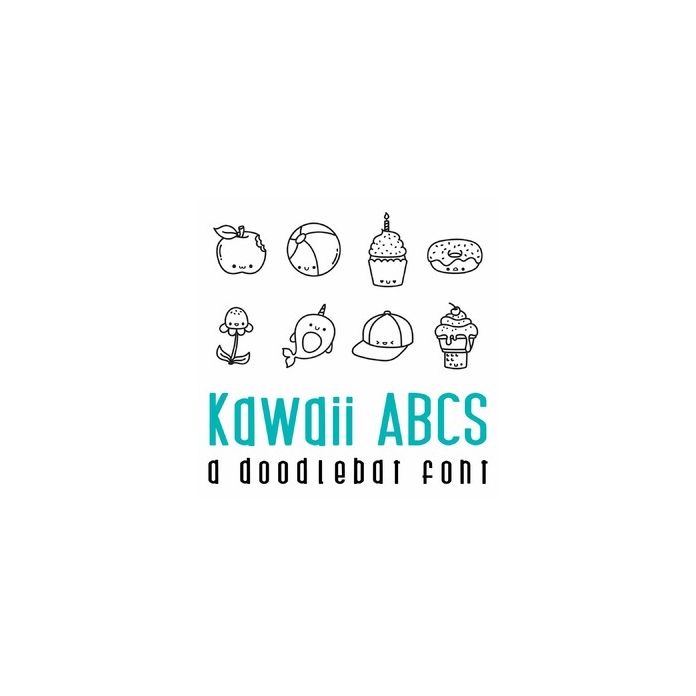
This fun doodlebat font features 26 Kawaii Styled images perfect for ABC's. Perfect for classrooms, teachers, cards, gifts, decor, crafts, scrap book pages, planner stickers and more!